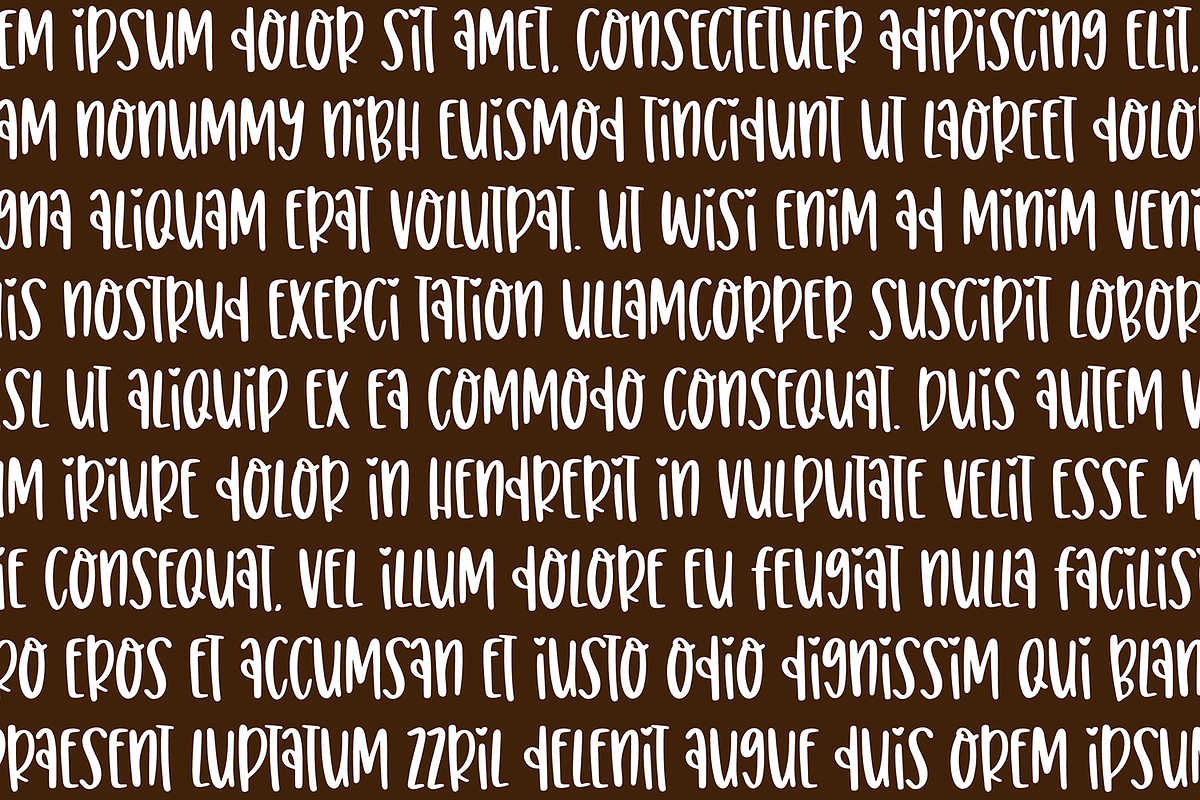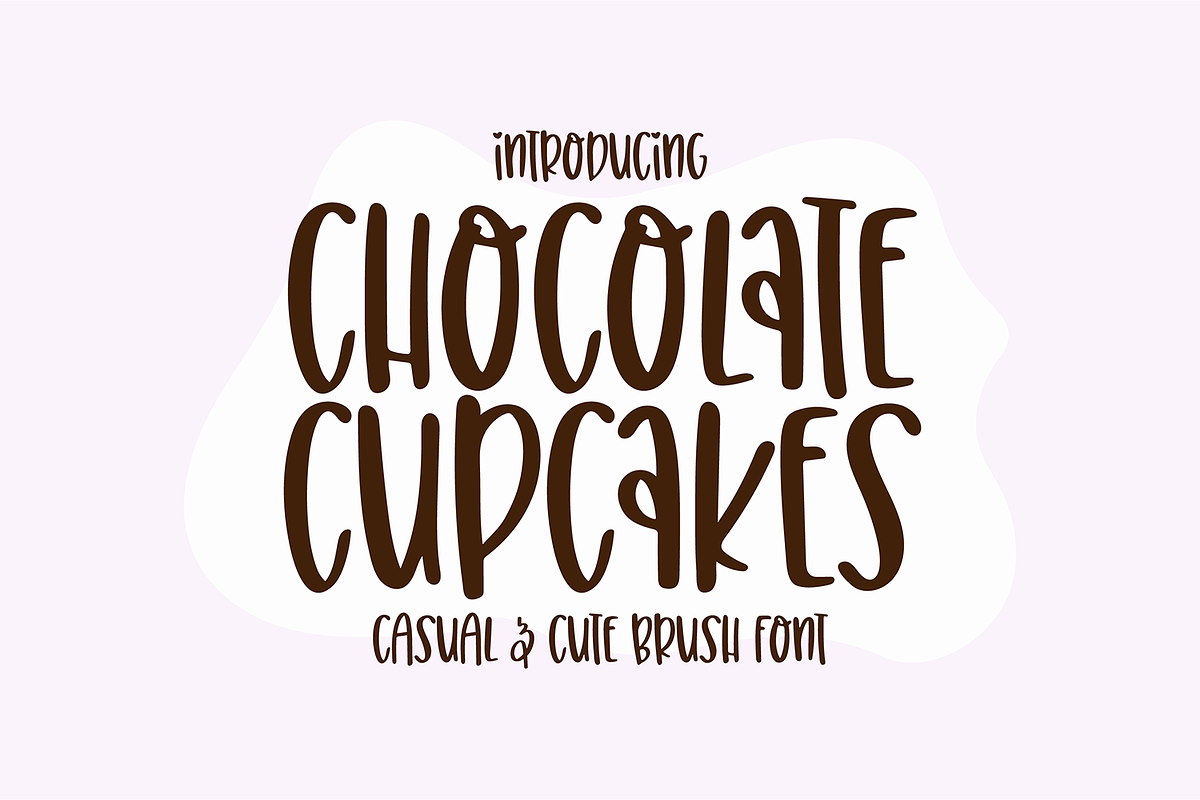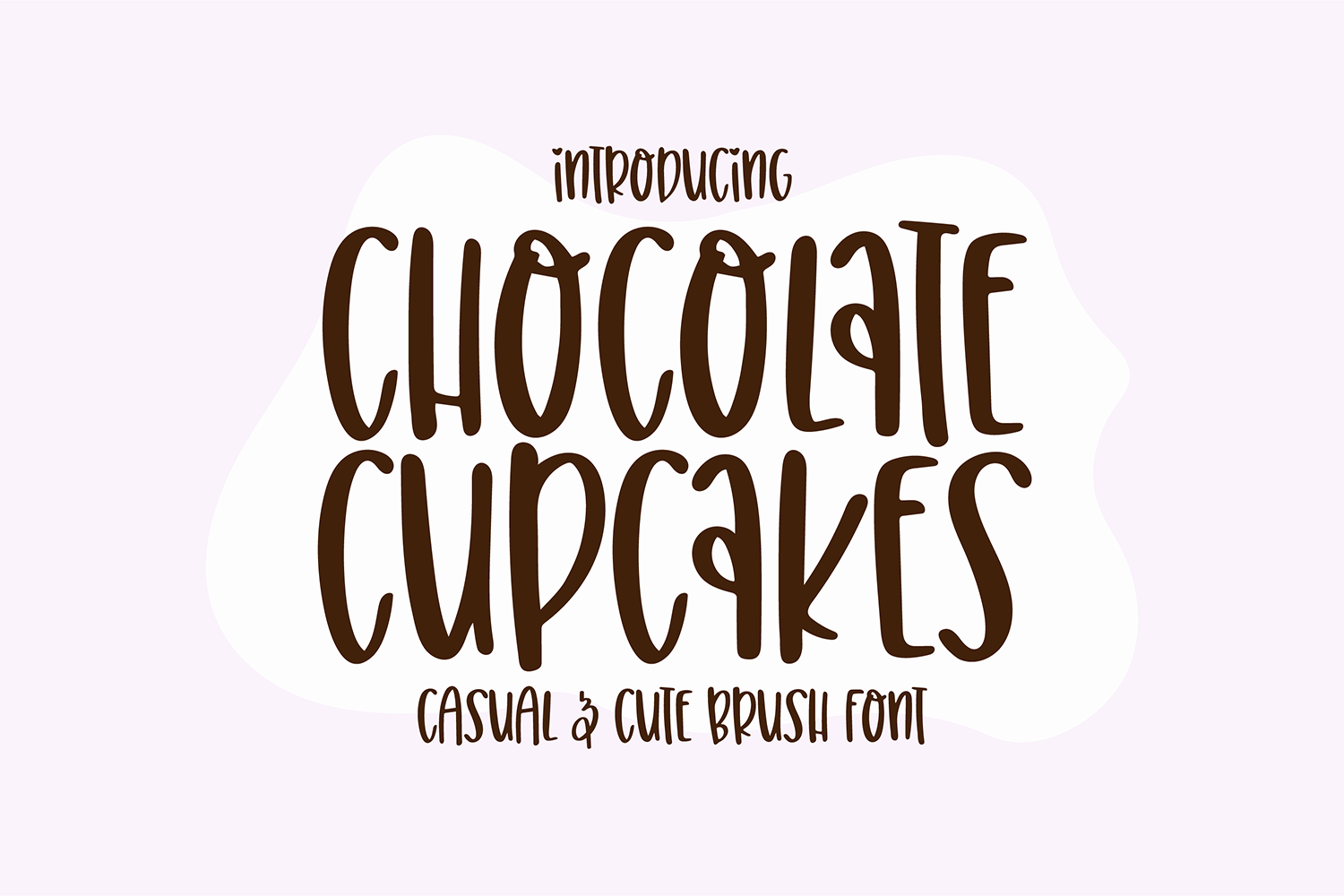
CHOCOLATE CUPCAKES Brush Font
"BFC Chocolate Cupcakes" casual script brush font.
This font is a whimsical brush font that is perfect for social media or crafty projects. Use it for branding, crafts for decor, invitations, and more! This font includes numbers, basic punctuation marks, and intl characters.